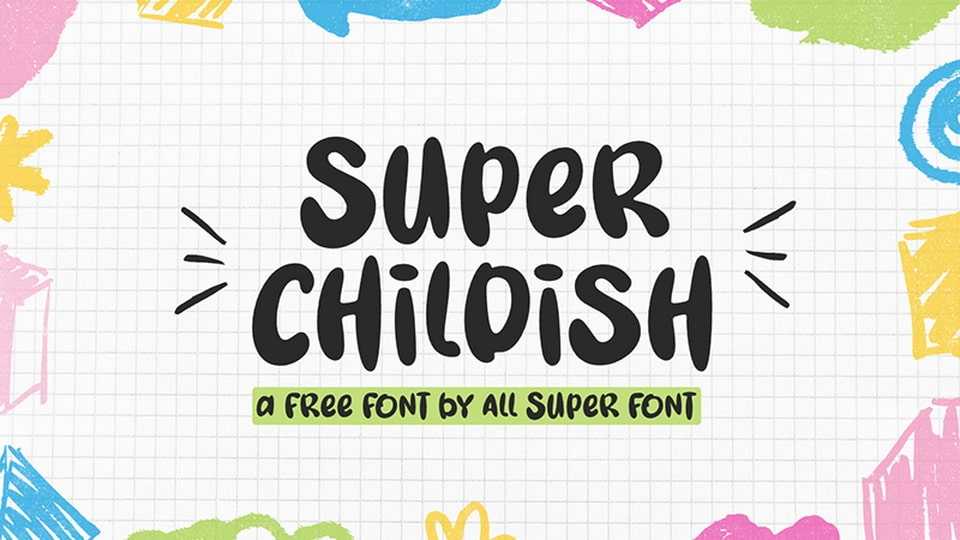
Download Super Childish font, a quirky, funny hand-drawn typeface that captures the playful spirit of childhood with irregular lines and bouncy shapes.